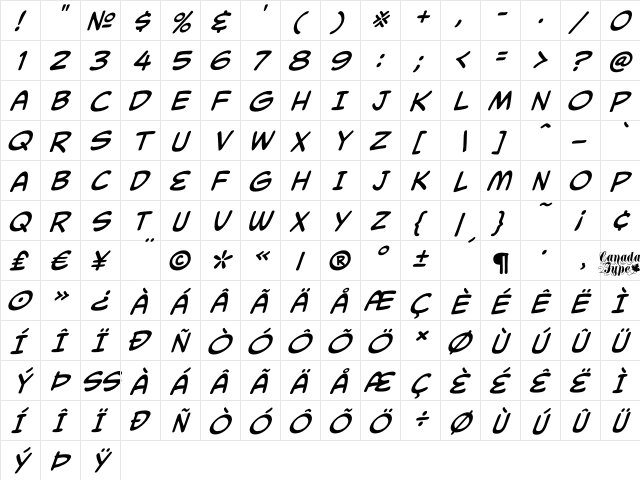
Collector Comic Italic
Design Context for Collector Comic Typeface
Collector Comic trades formality for fun, with bouncy, characterful letterforms that bring warmth and energy to any project. The slanted form adds forward momentum and visual energy.
Well-suited to food and beverage brands with personality, educational materials, and fun-forward identities.
Font Pairing: Pairs well with a rounded or humanist sans for body copy, maintaining the friendly tone without relying on Collector Comic to carry extended reading.
Pro Tip: Use Collector Comic at larger display sizes where its expressive character can land. Pair with a clean, simple sans for body copy to maintain readability.